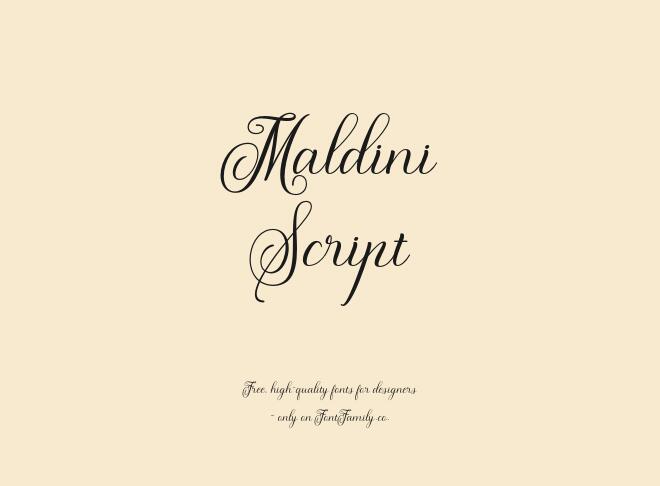
Maldini Script Font
Crafted with an artistic touch, the Maldini Script Font is a handwritten, elegant script font. Its flowing characters and stylish swashes make it a perfect choice for wedding invitations, personalized stationery, and logo designs. The font is reminiscent of classic calligraphy, yet it has a modern twist that adds a unique charm. The Maldini Script Font offers a wide range of possibilities, from branding to editorial design. Its versatile nature makes it comparable to popular fonts like the Dancing Script, but with more personality. This font's distinct style and readability make it a great choice for any designer looking to add elegance and sophistication to their work.